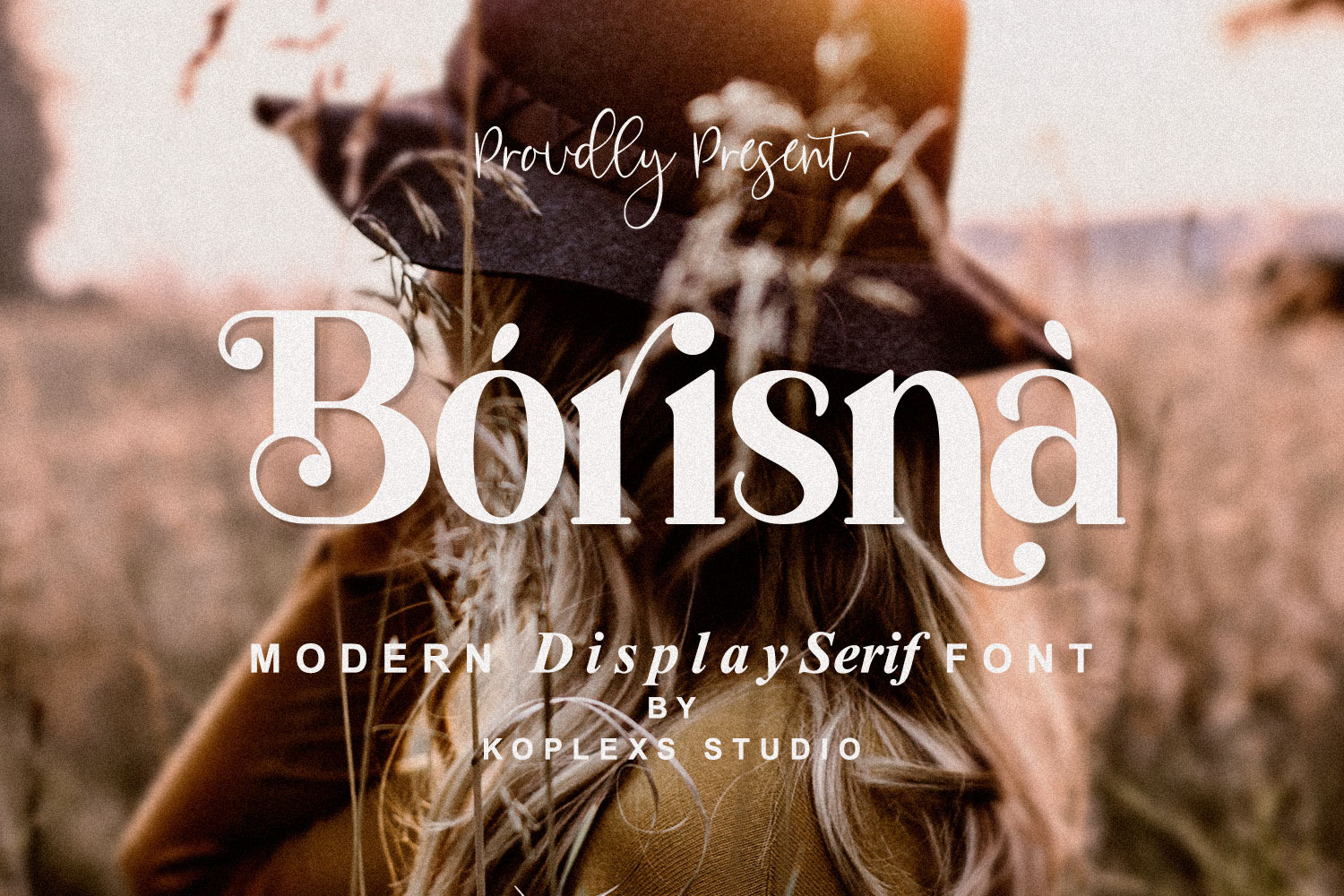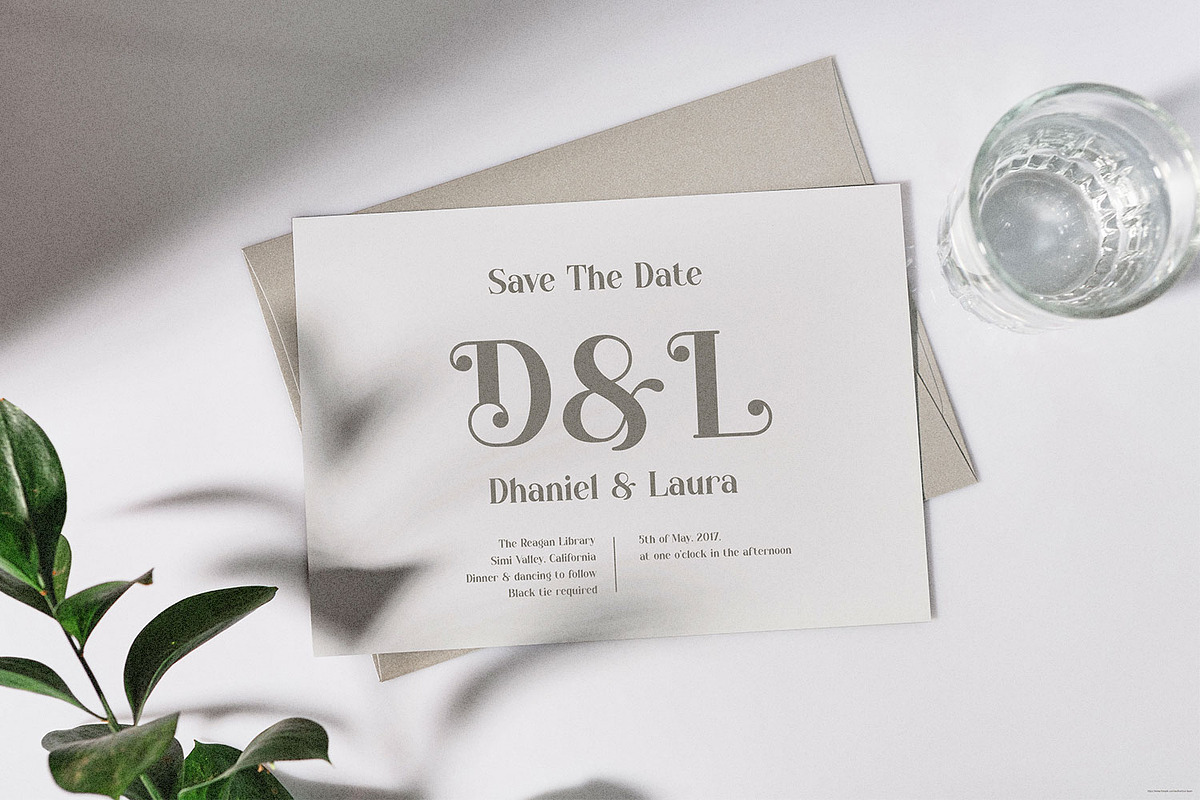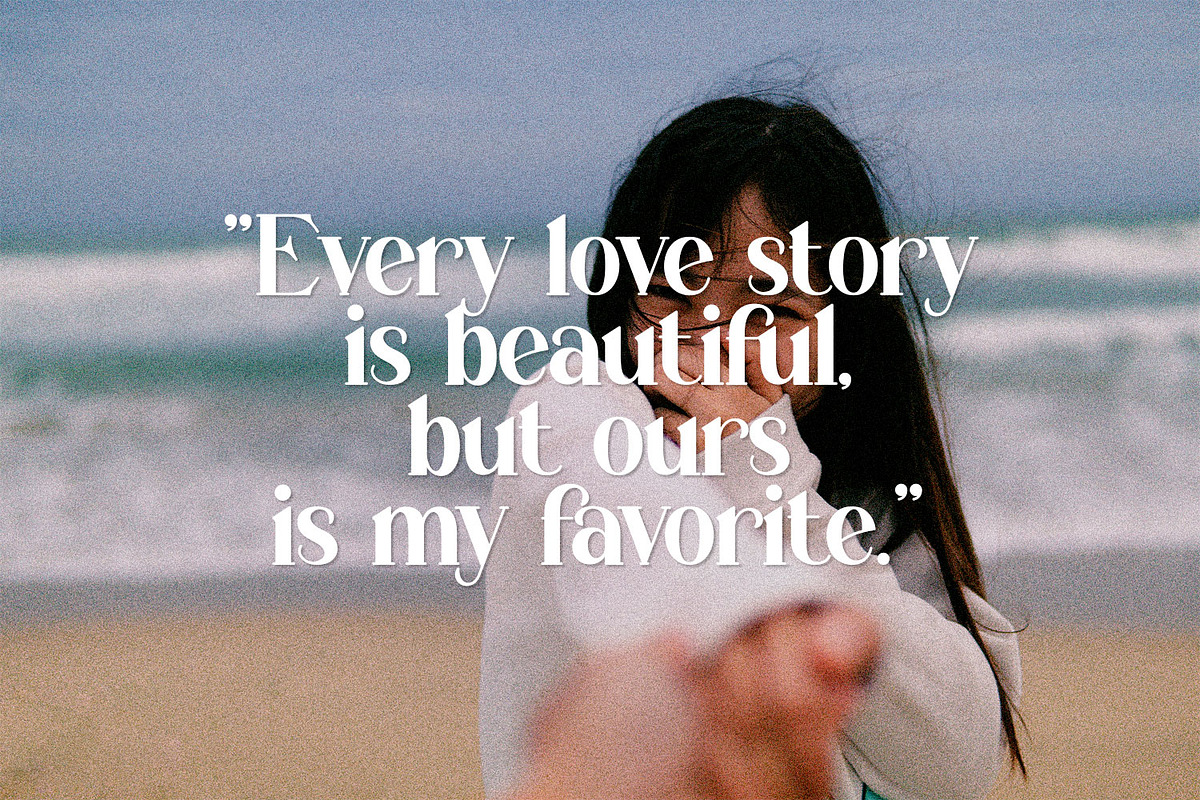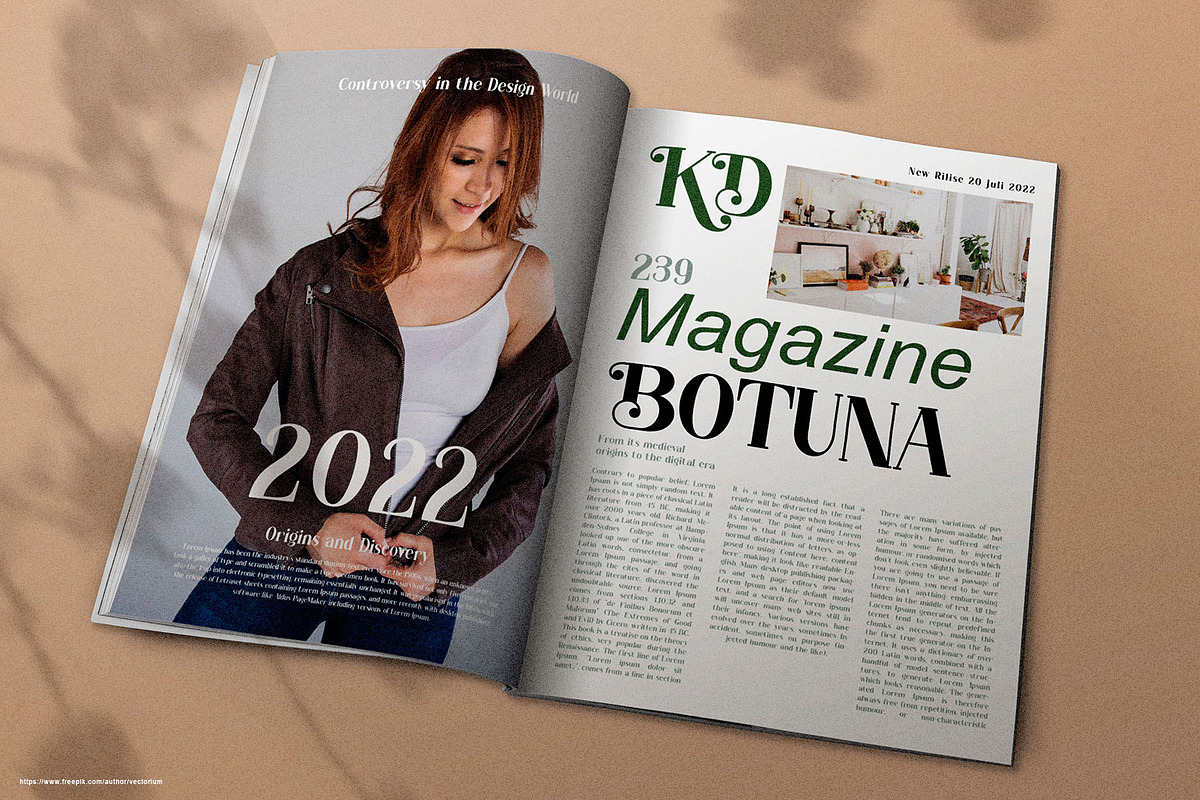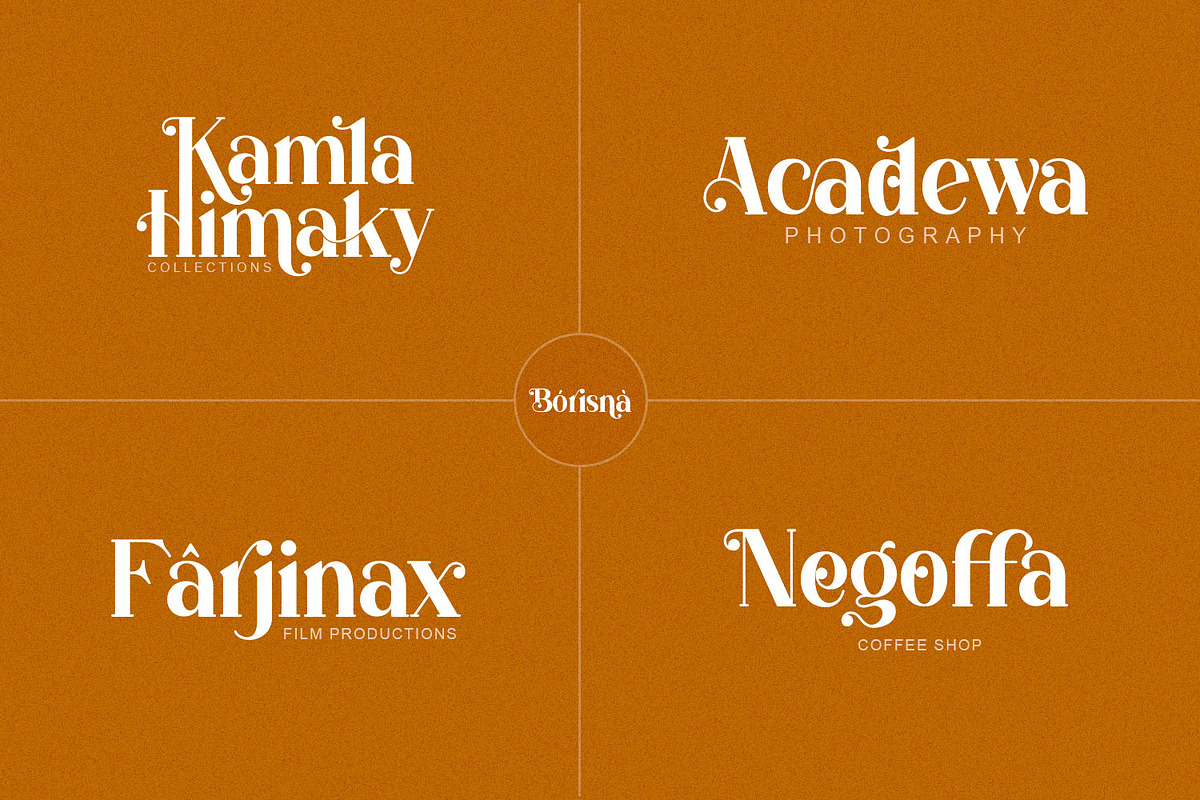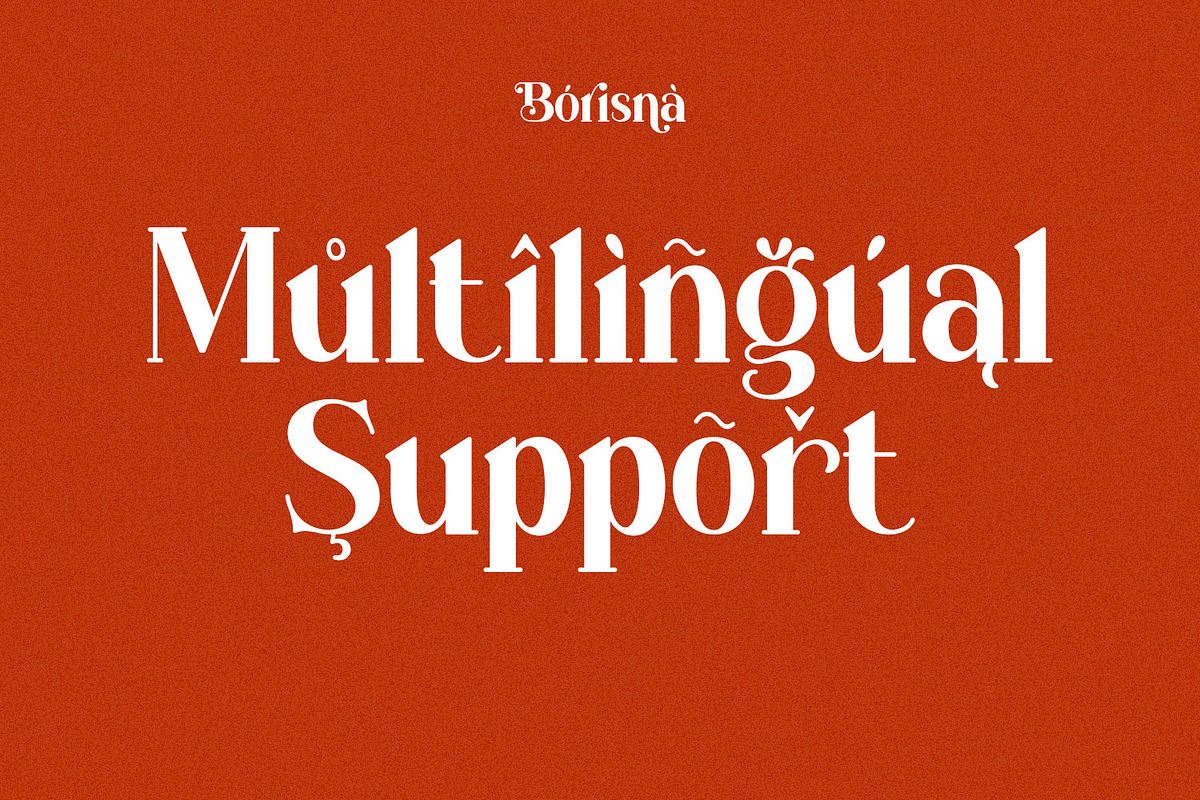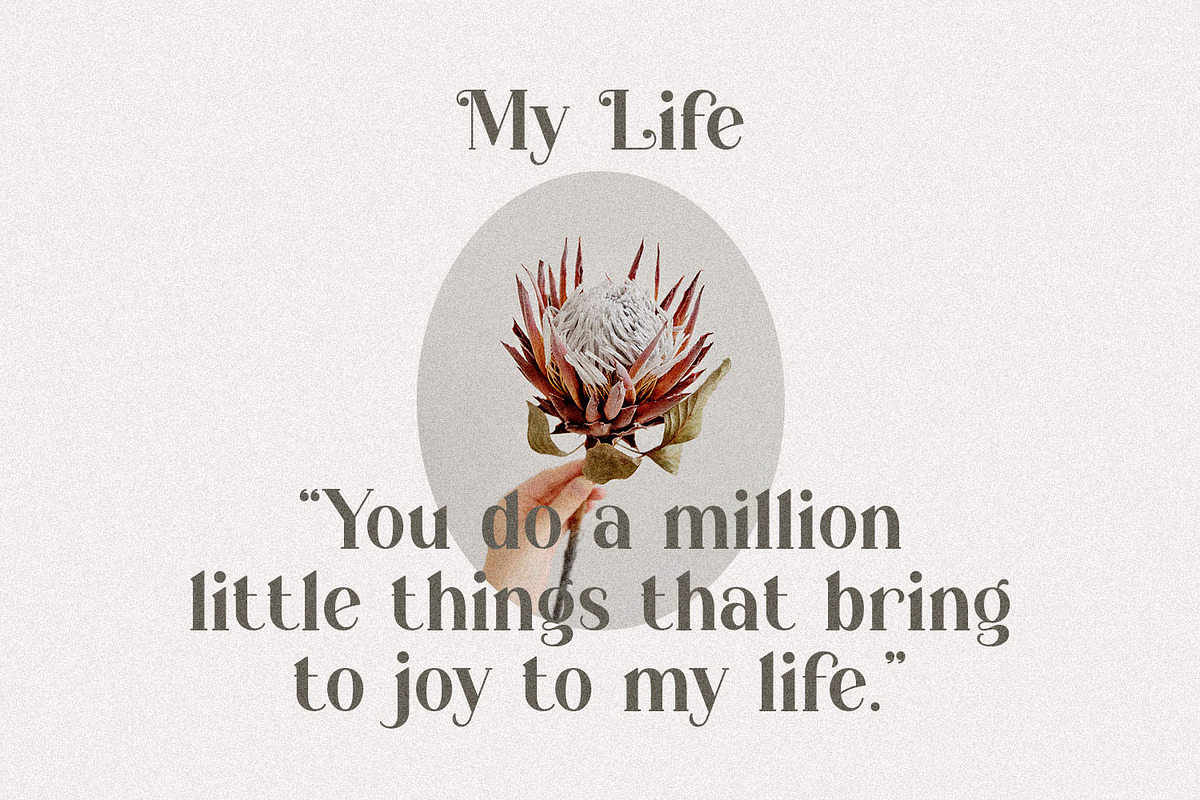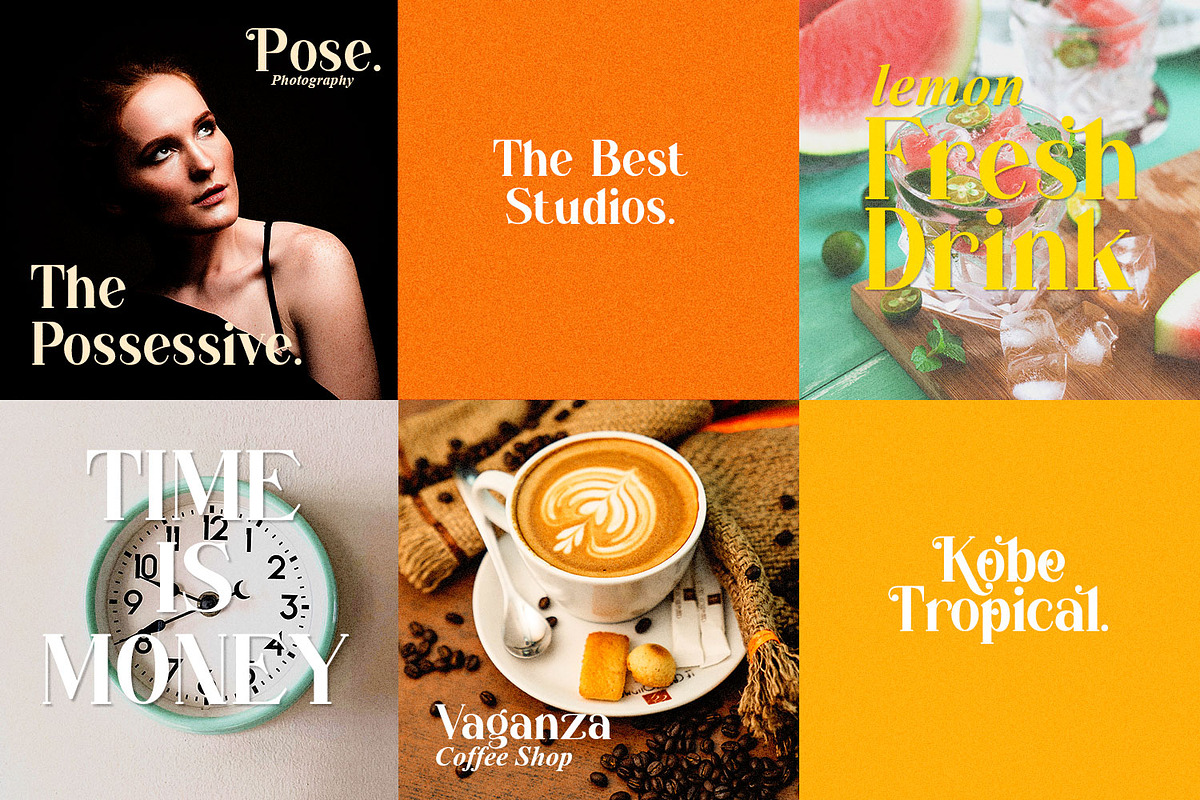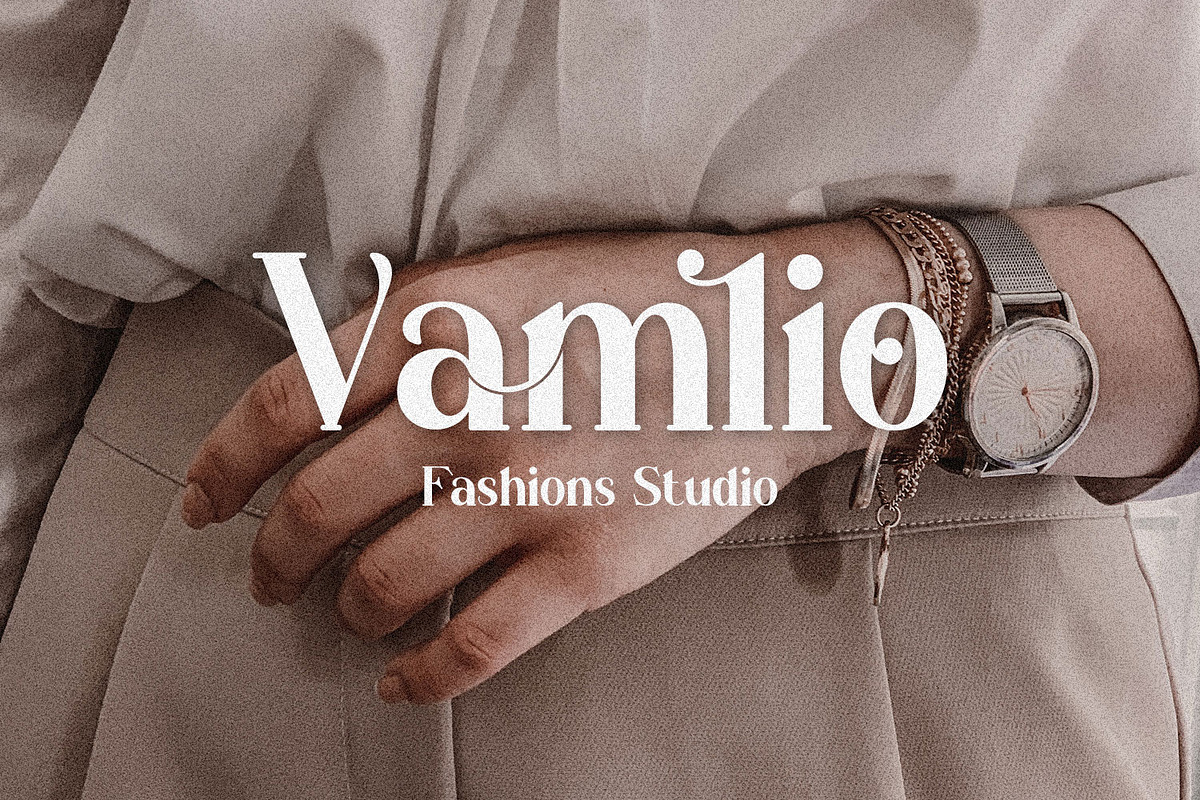
Borisna - Modern Display Serif Font
Borisna - Modern Display Serif Font.
Borisna - the 80's and 90's are classic eras, which according to my research results are becoming a trend again today, so we started to produce a written artwork that refers to that era, namely a modern retro display style.
Borisna is one of our writing designs that we think is very good and elegant when used for design styles with a modern retro style.
Borisna font is a collection of modern, retro, serif font, feminine, beautiful and classy characters, giving you a unique look for any branding or design need.
Access your OpenType features to access the large selection of alternate letters and ligatures, select the letters you like from the large variety to look you are after.
- Ligatures Features.
- Alternates.
- PUA Encoded Characters.
- Support for 67 languages detected by (fontdrop).